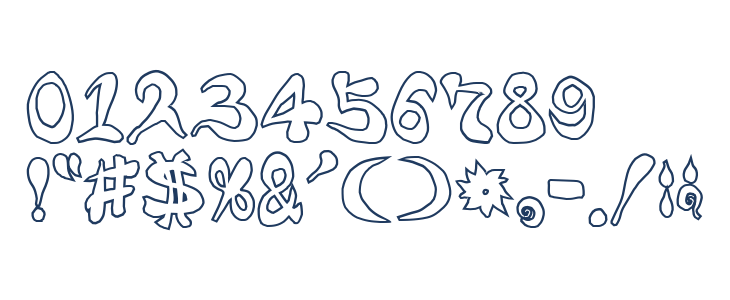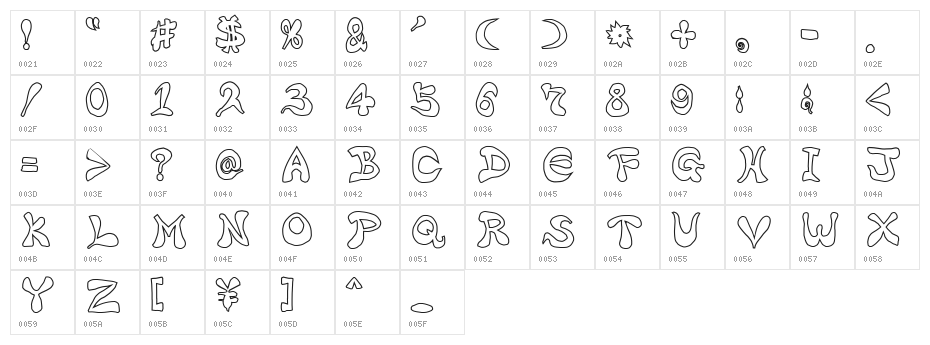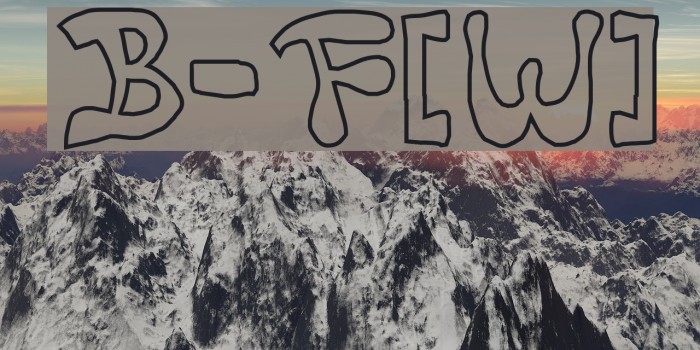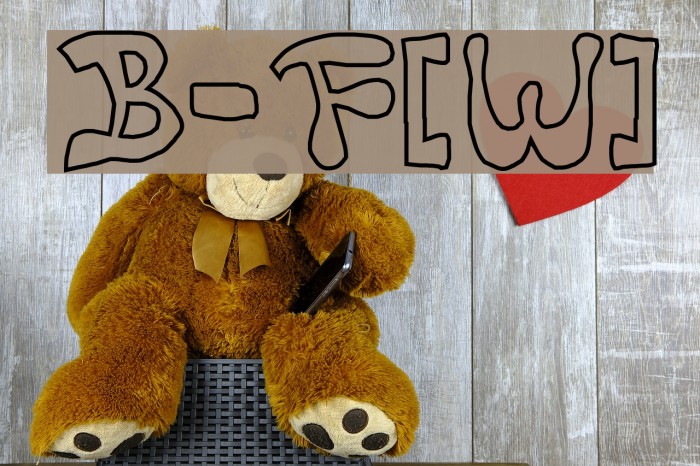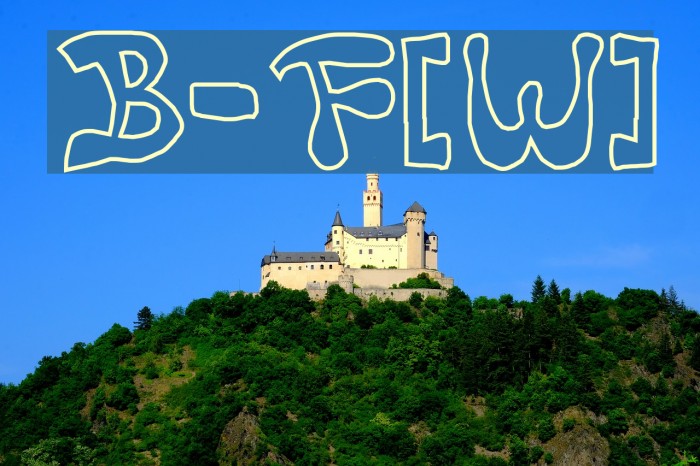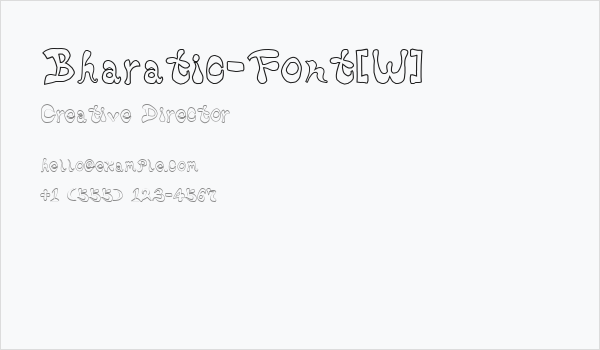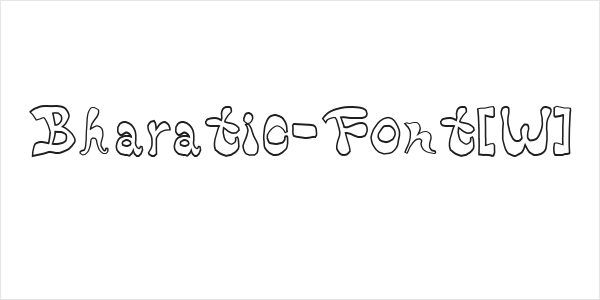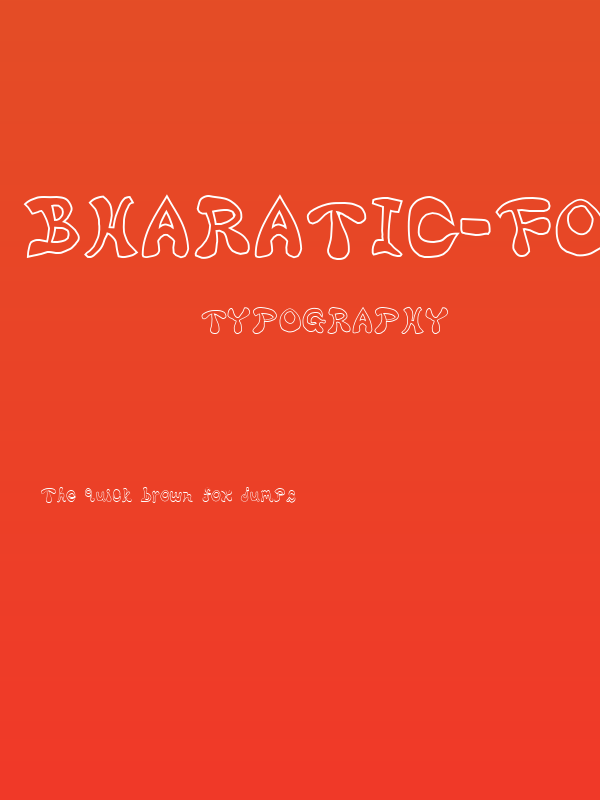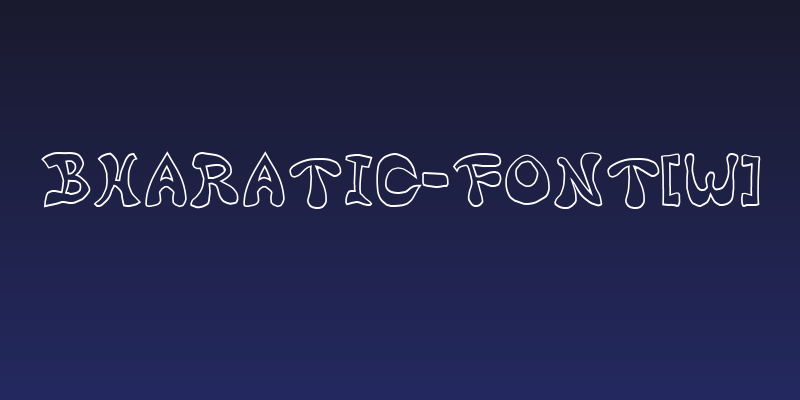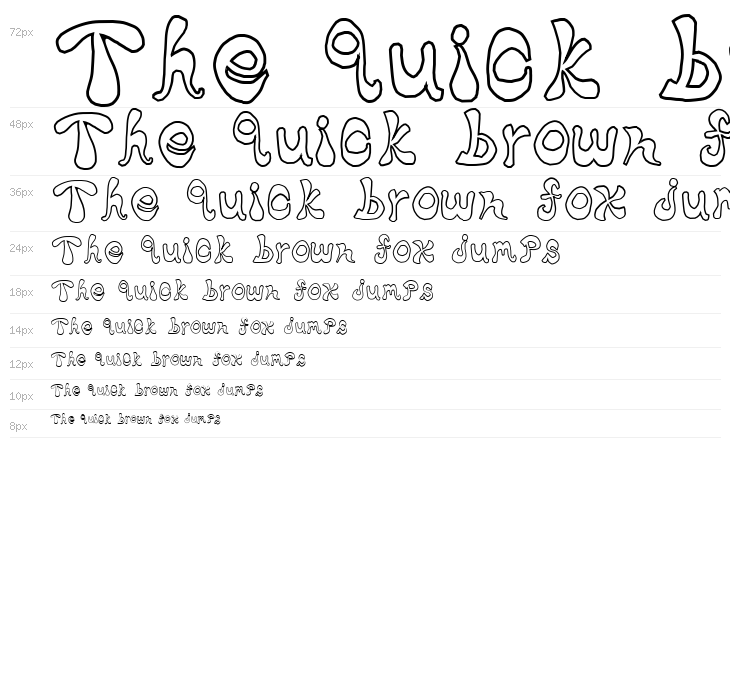
Bharatic-Font[W] Font
Bharatic-Font[W] Description
This font features a playful and whimsical design with a hand-drawn aesthetic. The characters are outlined with a bold, uneven stroke, giving them a lively and dynamic appearance. The uppercase and lowercase letters maintain a consistent style, with exaggerated curves and unique shapes that add to the font's charm. The numbers and special characters follow the same design principles, ensuring a cohesive look across all glyphs. This font is perfect for projects that require a fun and informal touch, such as children's books, playful branding, or creative posters.
Overall StyleWhimsical, Playful, Hand-drawn
Proposed ProjectsIdeal for children's books, playful branding, creative posters, and informal invitations.